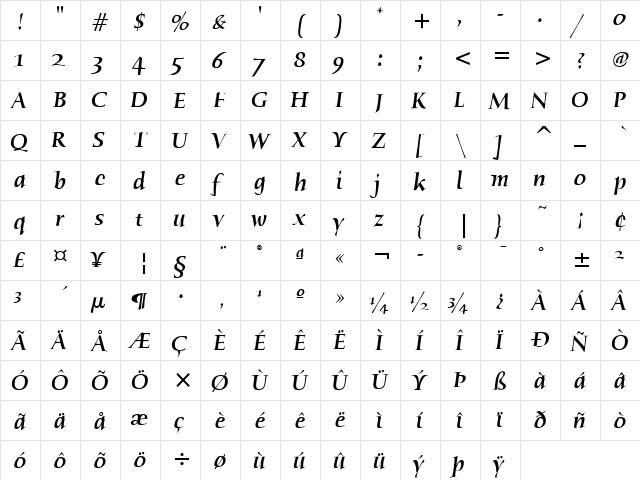
Humana Serif ITC Medium Italic
Design Context for Humana Serif ITC Typeface
Humana Serif ITC brings classic typographic sensibility to the table — its serifs and measured letterforms reflect centuries of print heritage. The slanted form adds forward momentum and visual energy.
Pro Tip: Set Humana Serif ITC with slightly loose tracking in headlines to let each letterform's detail read clearly at display sizes.